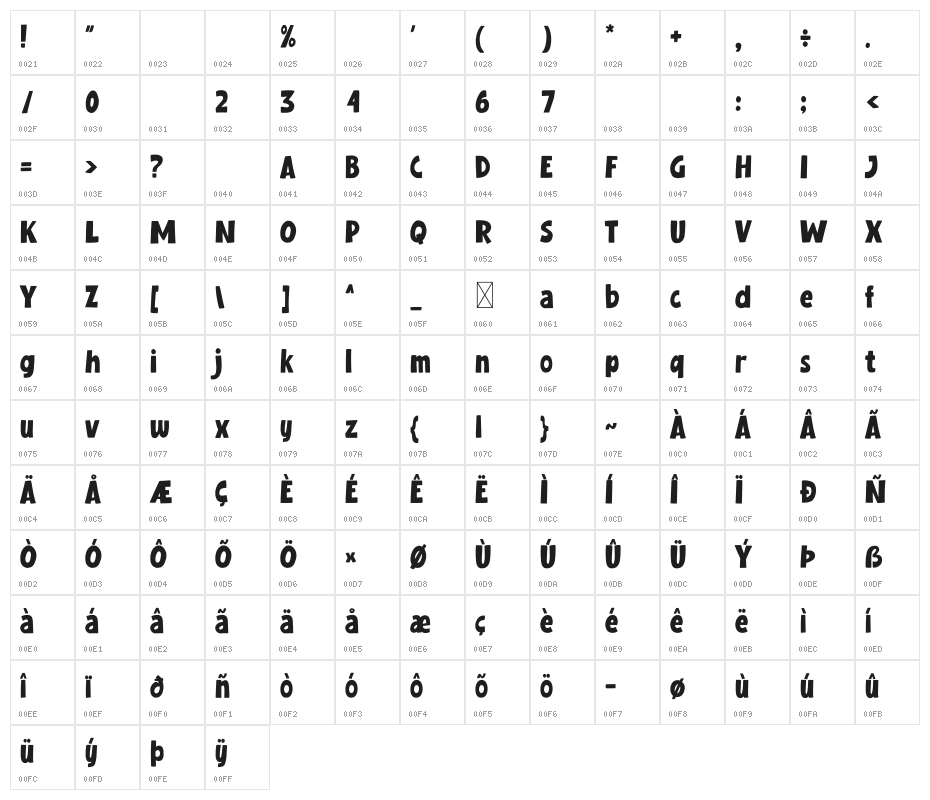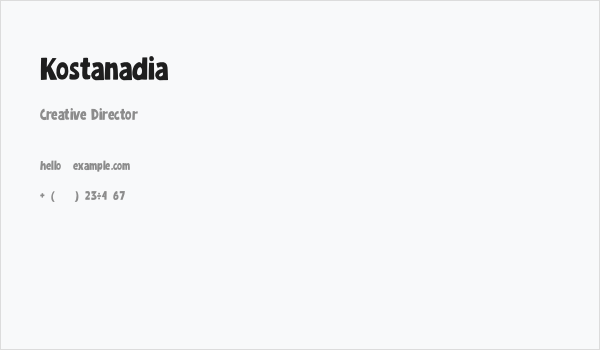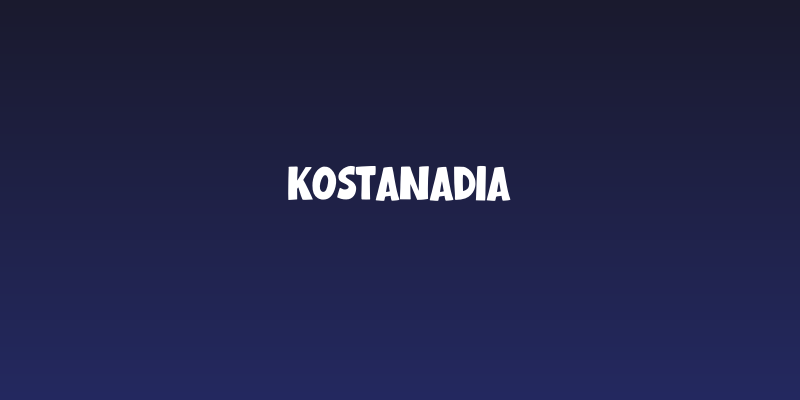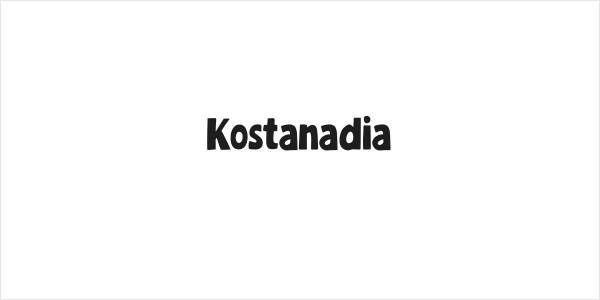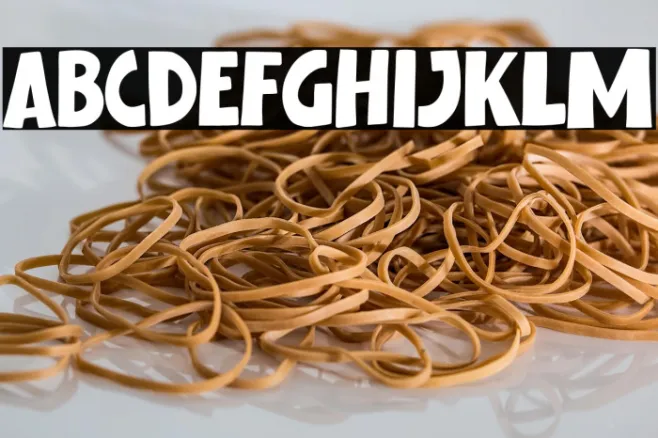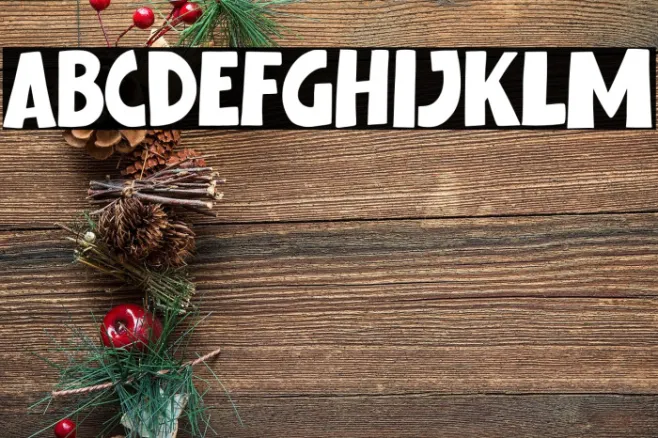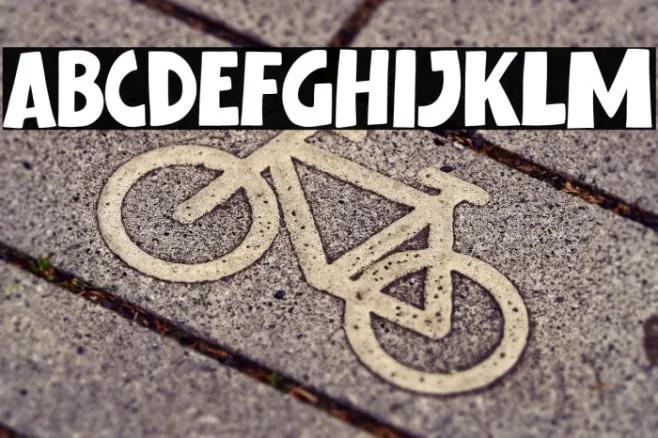
Kostanadia Font
Kostanadia Description
This font features bold, playful characters with a slightly irregular, hand-drawn appearance. The uppercase letters are robust and commanding, while the lowercase letters maintain a consistent style with a touch of whimsy. The numbers are bold and clear, matching the overall aesthetic of the alphabet. Special characters are creatively designed, adding to the font's unique personality. The strokes are thick, providing a strong visual impact, and the overall design suggests a sense of fun and creativity.
| Overall Style | Playful, Creative |
| Proposed Projects | Ideal for children's books, playful branding, posters, and creative projects that require a fun and engaging typeface. |